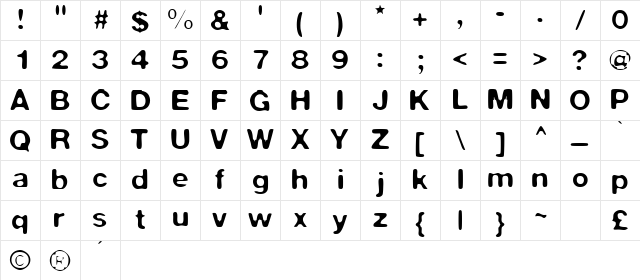
Warp 1 Regular Free Font
Warp 1 Regular
Design Context for Warp 1
Warp 1 is a composed and adaptable typeface that performs quietly and consistently across a wide range of design contexts.